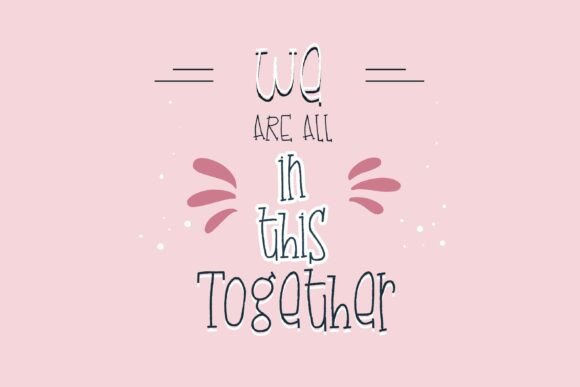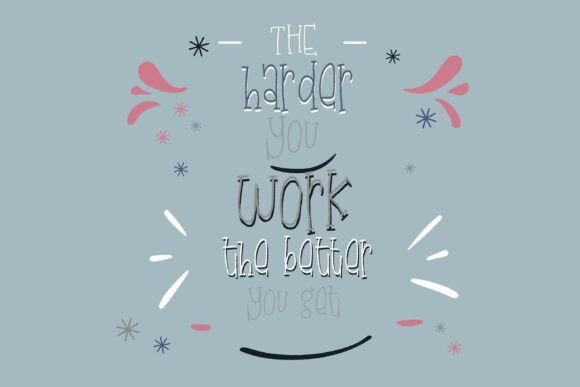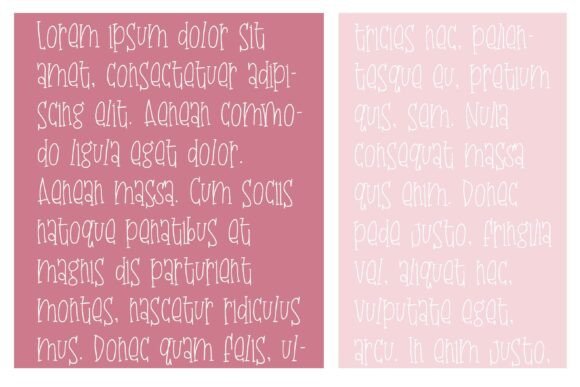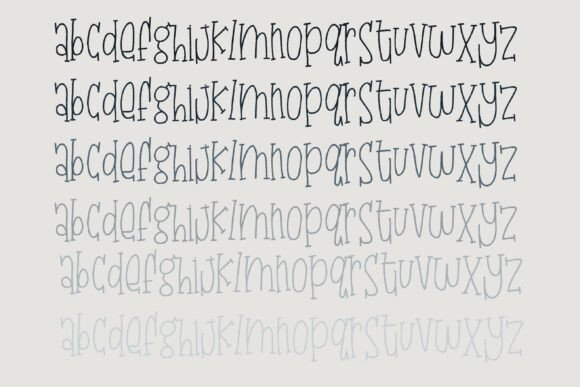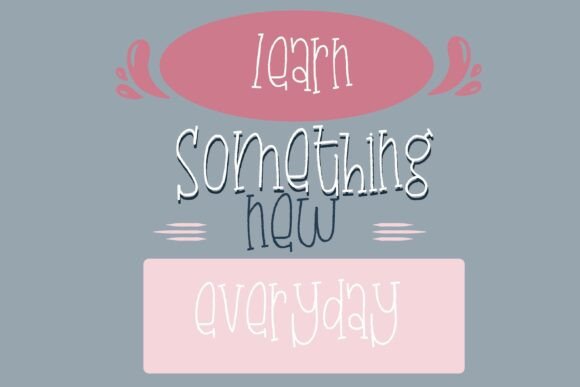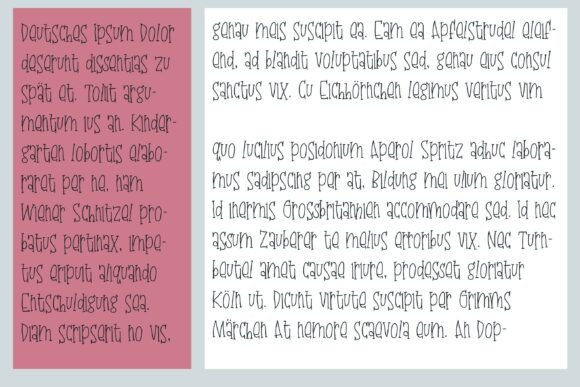
Introduction to Presumably Font
Presumably is a tall and quirky hand-drawn serif font with a charmingly imperfect style.
Its irregular letterforms and sketchy look add a dose of character to journaling projects, handmade goods, and creative branding .